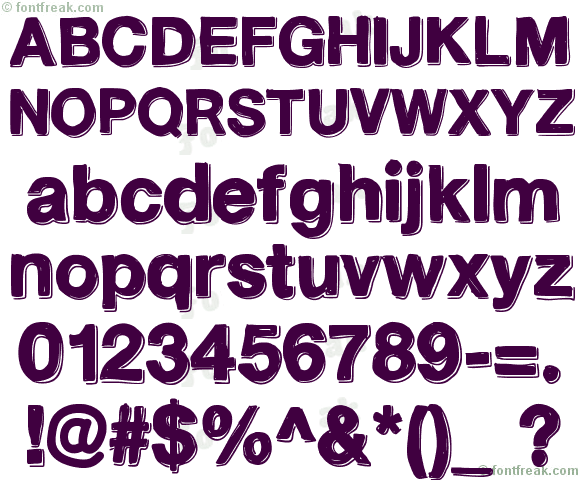
TeleVision
The TeleVision font, crafted by Luedecke Design Font Co., is a captivating display typeface that evokes a sense of nostalgia and creativity. This unique font falls into the decorative category, characterized by its playful and bold design elements. The TeleVision font features rounded, chunky letters with a consistent stroke weight that gives it a friendly and approachable appearance. The spacing between the characters is tight yet balanced, enhancing readability while maintaining an eye-catching aesthetic. Its distinctive style is further accentuated by subtle decorative elements that mimic the playful essence of retro television graphics.
This font is perfect for a variety of use cases, making it an incredibly versatile choice for designers. It shines in applications such as movie posters, where its boldness can capture attention and convey a sense of fun. TeleVision also works wonderfully for children's book covers, where its playful design can engage young readers. Additionally, it is well-suited for branding projects, particularly for businesses targeting a youthful audience, such as cafes or creative studios. Content creators will find it effective for social media graphics, adding a distinctive flair to advertisements and promotional materials.
The TeleVision font appeals to graphic designers, small business owners, and content creators looking to inject personality into their projects. Its unique design allows for creativity and innovation across various mediums. What truly sets the TeleVision font apart is its ability to combine nostalgia with modern flair, making it a standout choice for anyone seeking to make a lasting impression. Don’t miss the opportunity to enhance your creative projects—explore the TeleVision font free download and bring your ideas to life with this distinctive typeface.